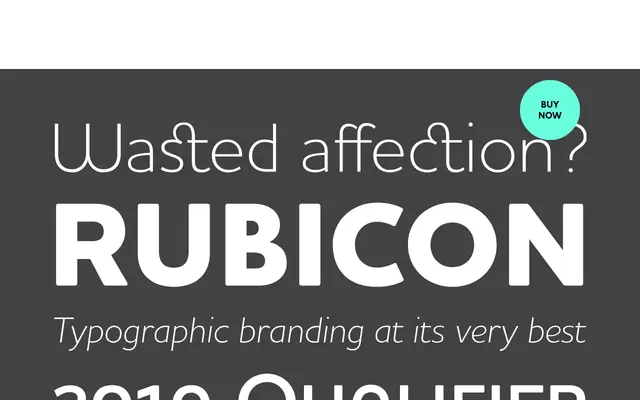
Houschka Pro
G-Type · Nick Cooke
A monolinear humanist sans with rounded corners and signature glyph eccentricities, drawing on the tradition of Gill Sans and Johnston.
Six weights from Thin to ExtraBold, each with a true italic, give the family 12 styles in total, all carrying extended Latin and Cyrillic coverage. Distinctive glyphs at A, G, Q, W and w give Houschka Pro a light personality that sets it apart from more neutral corporate humanists, though stylistic alternate sets allow these to be swapped for straighter forms. A companion family, Houschka Alt Pro, ships with the conventional alternates as defaults for users who prefer a cleaner corporate register.
Monolinear structure with rounded corners and humanist proportions places it squarely in the humanist sans tradition, citing Gill Sans and Johnston as reference points while adding distinctive rounded terminals.